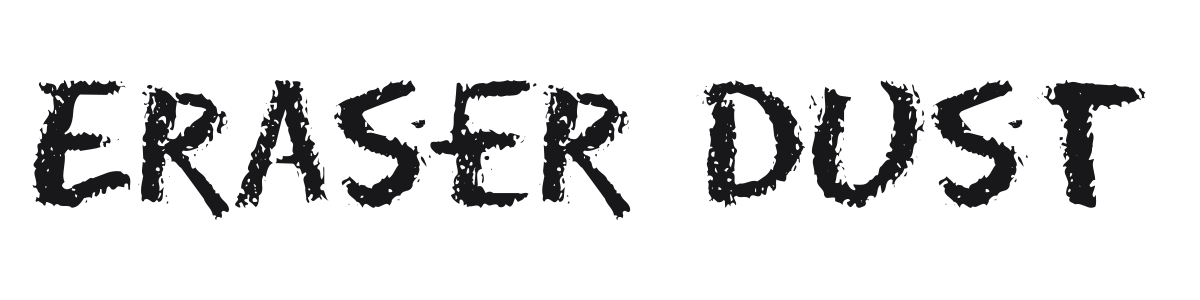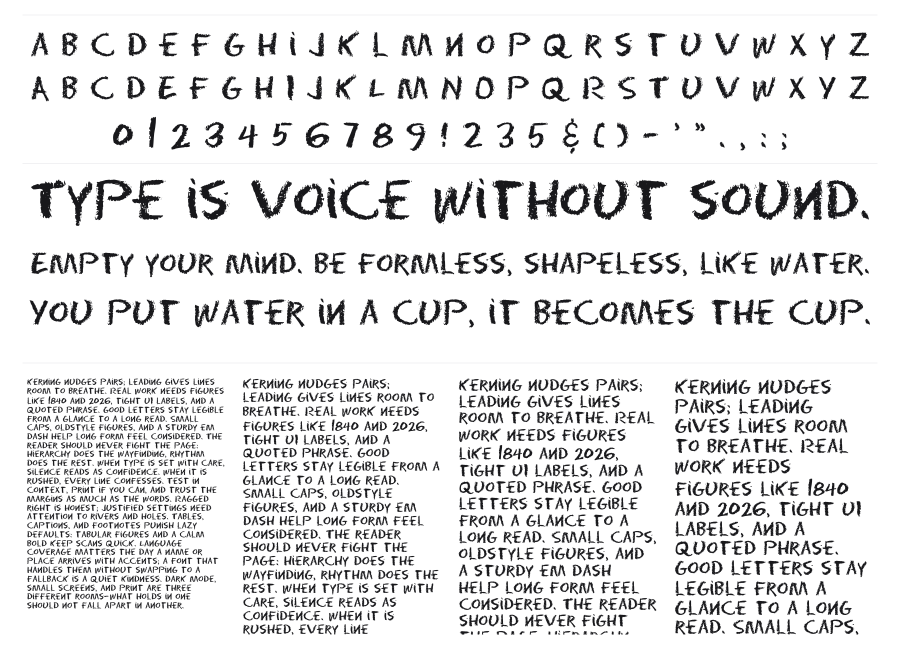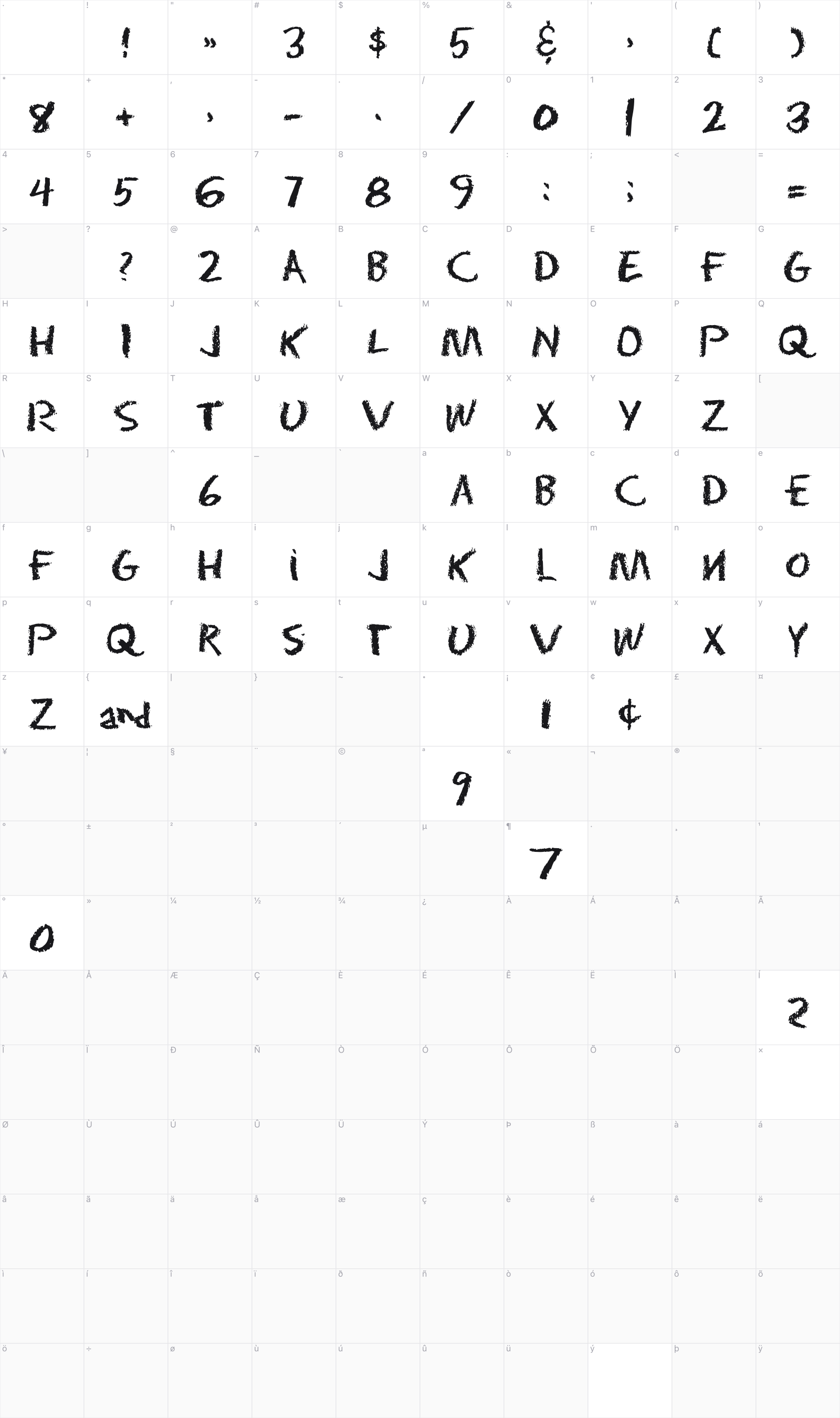
Eraser Dust
Eraser Dust is a heavily textured display font from 1992 that looks like text scrawled in chalk or charcoal and then partially rubbed away. Every character carries a rough, crumbling edge that gives it an unmistakably raw, hand-worn quality. It carries the aggressive energy of 1990s grunge design.